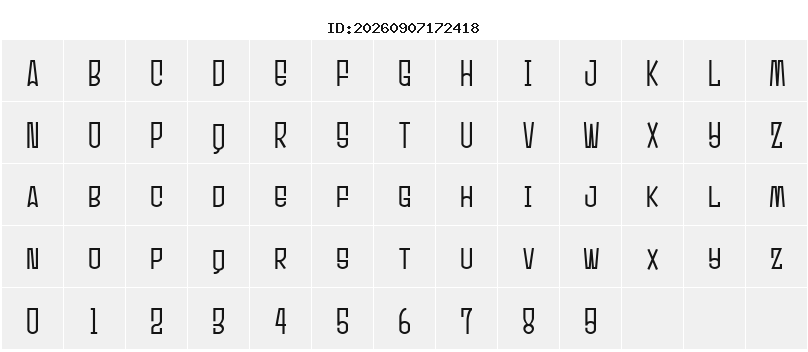
• Font Name: Ultrasonik
• Font ID: Ultrasonik
• Full Font Name: Ultrasonik
• PostScript Name: Ultrasonik
About Ultrasonik.ttf
Ultrasonik.ttf is a modern, elegant sans-serif font designed for ultimate readability and visual harmony. Perfect for branding, headlines, web design, and print materials.